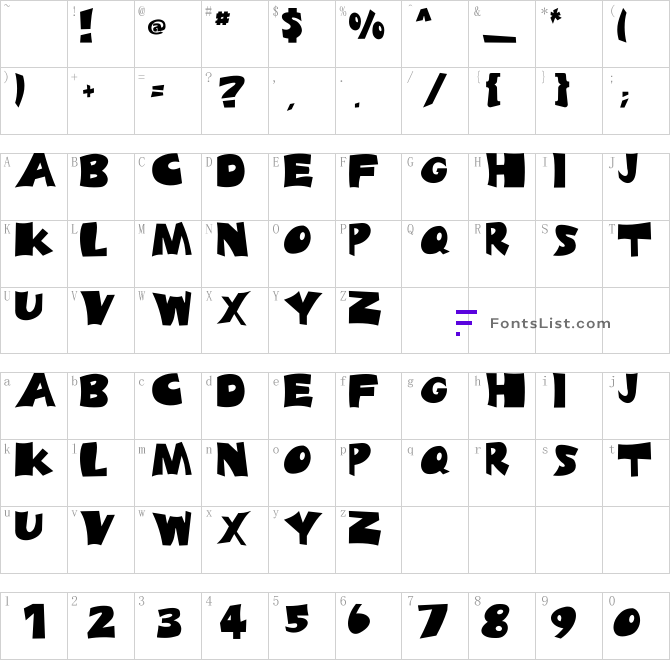
- Font Name:Daldes-Light
Daldes-Light.ttf is a very beautiful artistic font, Daldes-Light.ttf is widely used in the design and printing of various books and pictures,Daldes-Light.ttf has a strong visual impact,Daldes-Light.ttf is a commonly used font in newspapers, magazines and books, and is used in posters, e-commerce Poster design, store design, logo design, font design and other fields.Daldes-Light.